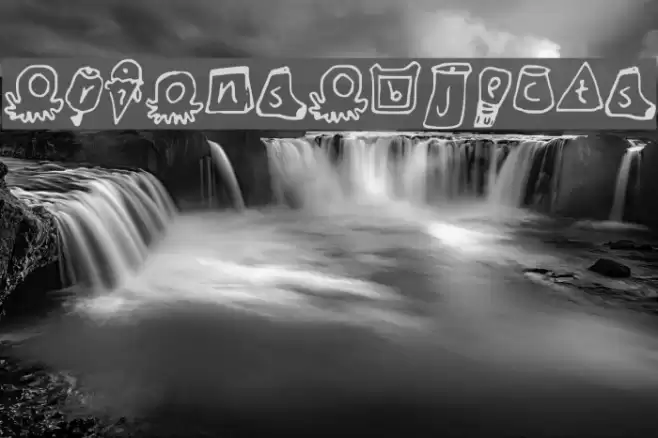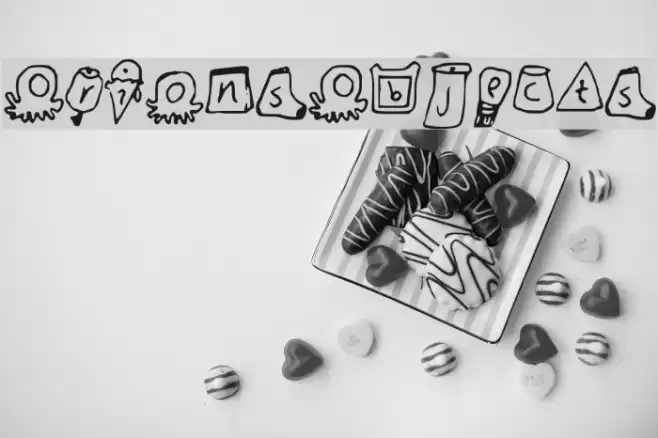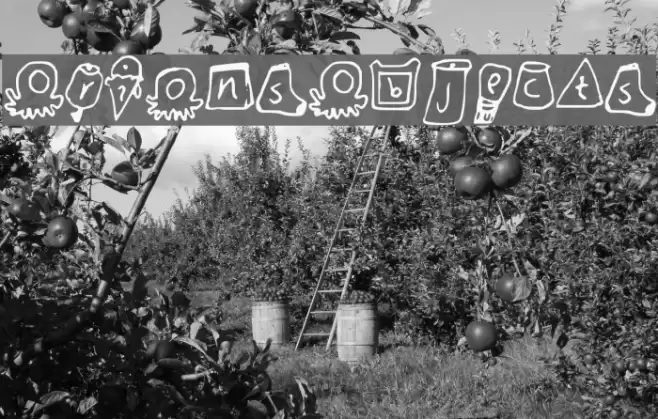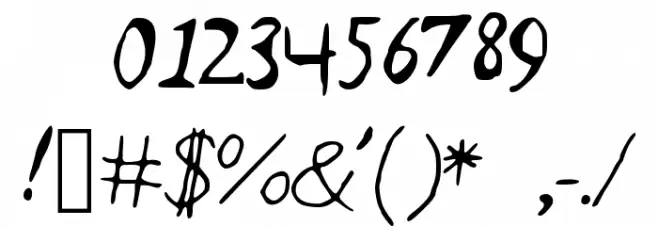
Orions_Objects Font
Orions_Objects Description
This font is a playful and decorative typeface where each character is uniquely encased in a different object or shape, giving it a whimsical and artistic feel. The uppercase letters are bold and vary in design, with each letter appearing within a distinct object, such as a cup, triangle, or jar. The lowercase letters follow a similar pattern, maintaining the quirky and creative theme. Numbers are more straightforward, with a bold and slightly irregular style. Special characters continue the theme with unique and imaginative designs. This font is ideal for projects that require a fun and eye-catching aesthetic.
A whimsical and decorative font with each character encased in unique objects from Uncategorized fonts.
- Proposed Projects: Perfect for children's books, creative posters, playful branding, and artistic invitations.